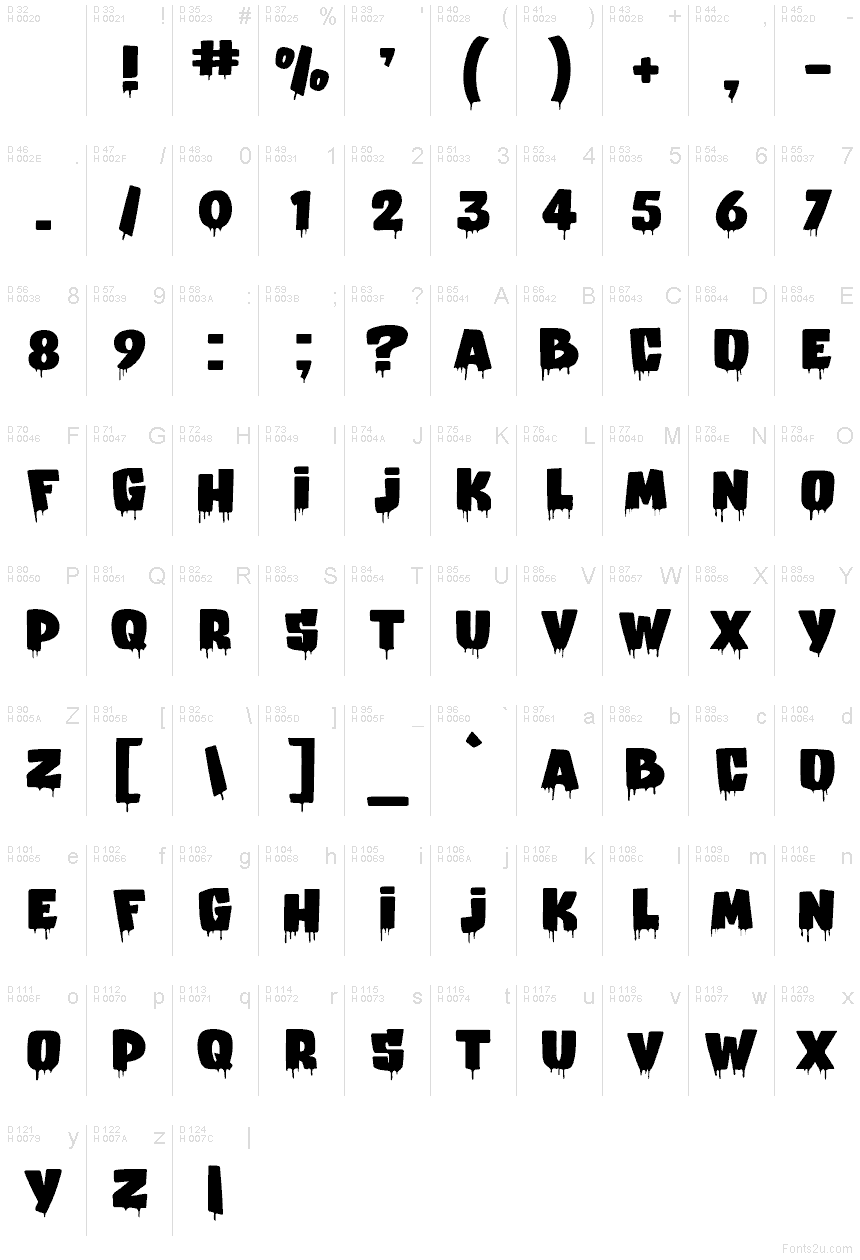
URBAN VIBES
Urban Vibes font by Cat.B combines a graffiti-inspired style with a bold appearance and dripping effect. The edgy design conveys a modern street-style look for projects that need a rebellious aesthetic. Urban Vibes is an ideal choice for any designer looking to add some authenticity and urban energy to their project.
Use this font on posters, T-shirt designs, hip-hop related projects, sneakers catalogs, nightclub invitations, album covers, graffiti arts & illustrations. It is also suitable for branding projects or as overlay texts on various photos & illistrations in websites or print publications.